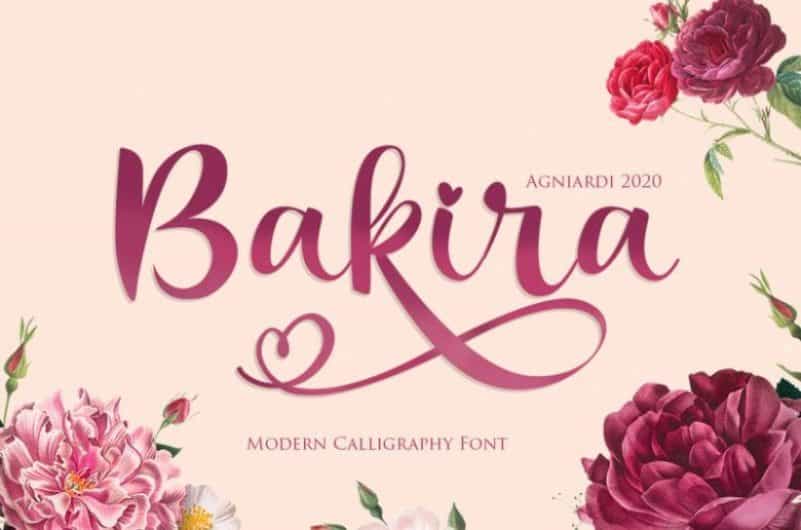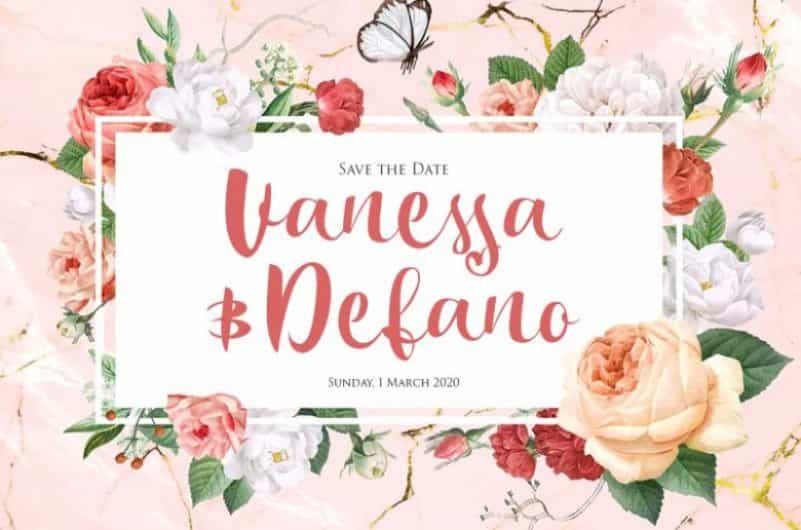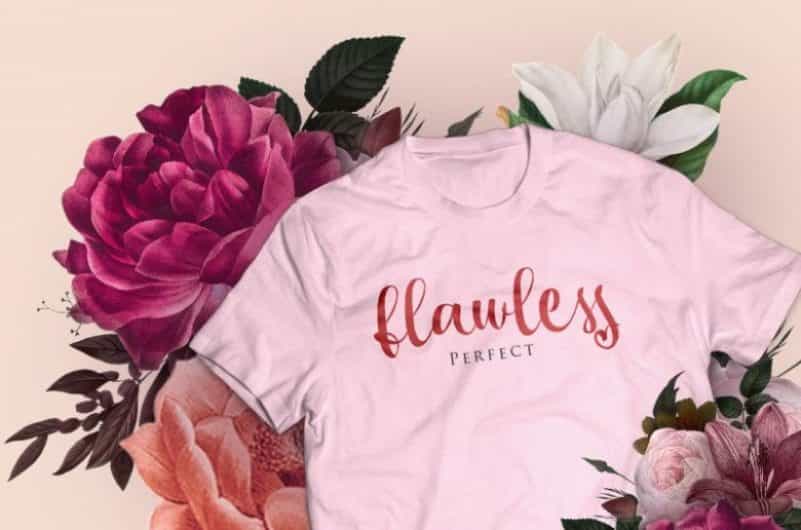
Bakira Modern Calligraphy script font has a smooth handwritten style. Comes with 215 glyphs. Bakira is the best choice for branding projects, homeware designs, product packaging and use in name cards or invitation cards. It can also be a stylish text overlay to any background image that needs some elegance.